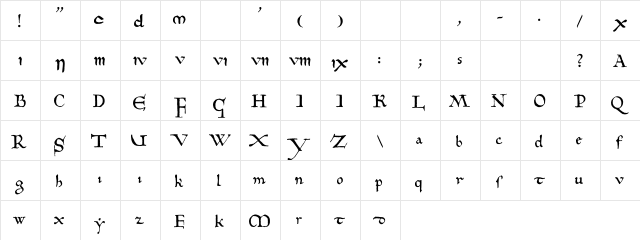
10th Century Bookhand WF Regular
Design Context for 10th Century Bookhand WF Typeface
10th Century Bookhand WF brings a calligraphic fluidity to the page — its connecting strokes and expressive curves give it an unmistakably human quality.
Font Pairing: Combine 10th Century Bookhand WF with a simple geometric sans for maximum contrast — the tension between flowing curves and clean structure is a classic typographic pairing.
Pro Tip: Pair 10th Century Bookhand WF with a clean sans-serif for supporting text. The contrast between fluid script and geometric structure creates an elegant typographic hierarchy.